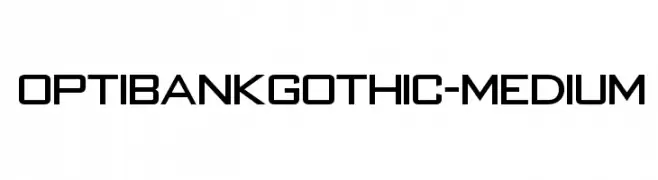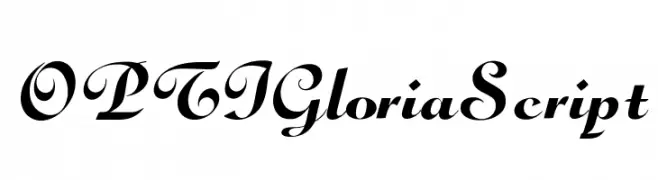
An elegant, high-contrast script font with ornate curves and a classic style.
A bold, classic serif font with elegant proportions and strong serifs.
A modern, geometric font with clean lines and extended width.
A classic serif font with elegant, thin strokes and high contrast.
An elegant serif font with a classic italic style and medium weight.
A classic serif font with elegant strokes and moderate contrast, perfect for timeless designs.
A tall, narrow font with a modern and elegant style.
A classic serif font with high contrast and elegant strokes.
A classic serif font with elegant curves and medium weight.
A modern, geometric font with bold, angular characters and a sleek appearance.